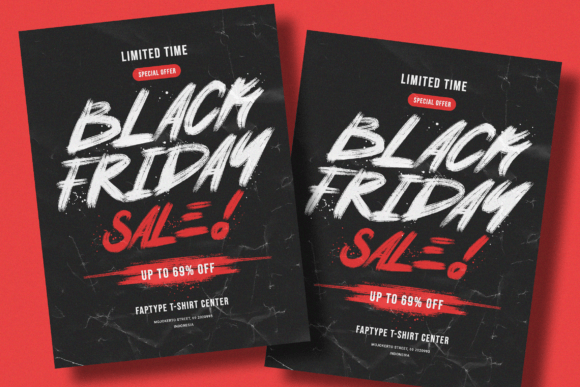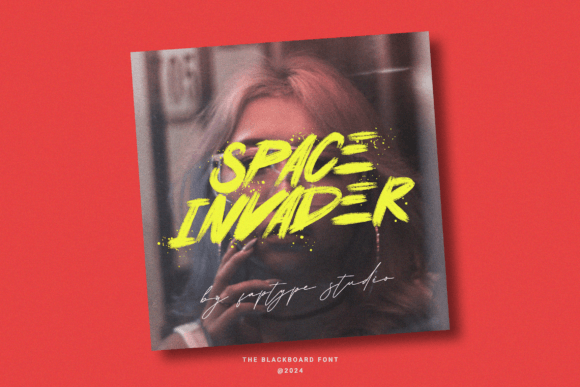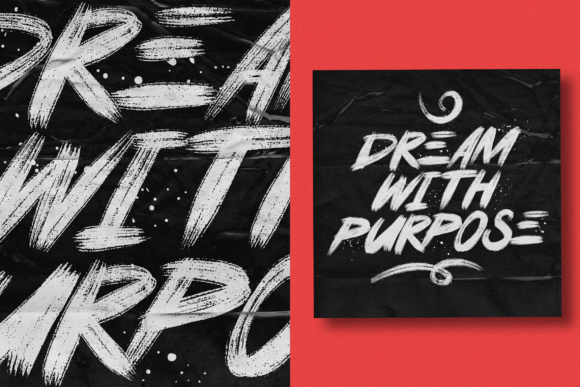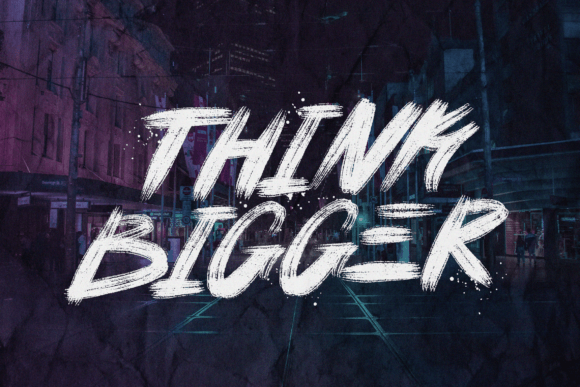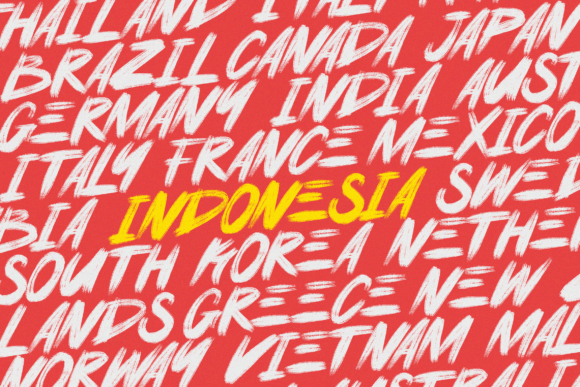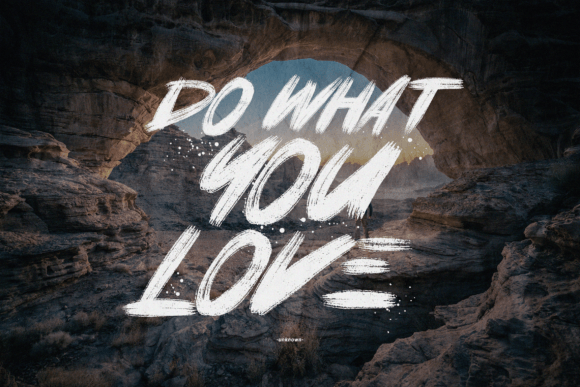
The Birth of a Bold Design Statement
Have you ever sat down with a blank canvas, a blank page, or a blank screen, eager to unleash your creativity? The thrill of bringing an idea to life is exhilarating, and it’s in these moments that we’re reminded of the power of design. For designers, the quest for the perfect font is a never-ending journey, and today, we’re excited to introduce you to a game-changer: the Blackboard Font.
This bold and dynamic heavy brush handwriting font is designed to make a statement, capturing the raw energy of traditional brush lettering with its striking strokes and authentic hand-drawn texture. Whether you’re crafting a commanding logo or eye-catching promotional material, the Blackboard Font is the perfect choice to add an expressive touch and convey confidence and clarity.
Blackboard Font Key Features
- Unique Characteristics: Blackboard font is known for its distinctive, cursive-like appearance with a thick, bold stroke and a rough, chalkboard-inspired texture, giving it a unique and educational feel.
Designer Review: Blackboard Font
Overall, I think Blackboard Font is a solid, no-frills option for designers looking to add a bit of educational charm to their projects. Here are a few things that work well: ✨
- Easy to read, even at small font sizes
- Classic, nostalgic feel that’s perfect for educational or vintage-themed designs
- Works well for headings and titles
However, there are a few limitations to keep in mind: ⚠️
- Limited customization options, which may not be ideal for designers who like to fine-tune their fonts
- Can look a bit bland or generic in certain contexts
- Not suitable for projects that require a more modern or sleek aesthetic
Overall, I’d give Blackboard Font 3.5 out of 5 stars. It’s a reliable choice for designers who want a simple, classic font, but it may not be the best option for those who need more flexibility or a more modern look.
Blackboard Font: A Practical Application Guide
Getting the Most Out of the Blackboard Font
To get the most out of the Blackboard font, consider the following tips:
- Use the font in bold or italic to add emphasis.
- Pair the font with a clean and simple background to let the text stand out.
- Experiment with different font sizes to create visual hierarchy.
The Blackboard font is commonly used in:
- Education and academic materials.
- Designing chalkboards or blackboards.
- Creating a vintage or retro aesthetic.
Alternatives to Blackboard Font for Designers
Rockwell Font
Rockwell is a serif font that is often used as a substitute for Blackboard Font. It has a similar feel and is great for body text, especially in print materials. Rockwell is a bit more elegant than Blackboard Font and works well in formal documents and presentations.
When to use: Body text in formal documents, presentations, and print materials.
Comparison: Rockwell has a more refined feel than Blackboard Font and is better suited for formal documents, while Blackboard Font is more casual and informal.
Didot Font
Didot is a serif font that is similar to Blackboard Font in its elegant and refined feel. It is great for body text and is often used in high-end publications and designs. Didot is a bit more formal than Blackboard Font and works well in sophisticated designs.
Are there any variations or similar fonts to Blackboard Font?
Yes, there are several variations and similar fonts to Blackboard Font. Some popular alternatives include:
– Arial Black: A bold, sans-serif font designed by Robin Nicholas and Patricia Saunders.
–